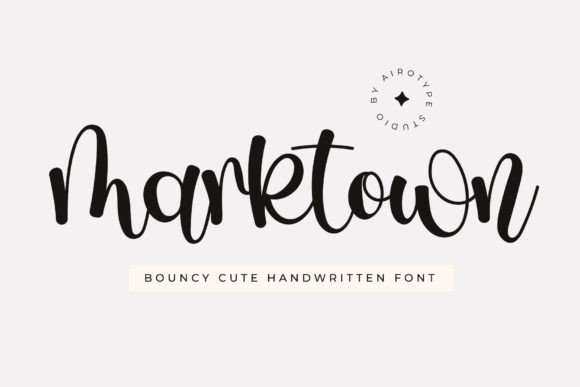
Meet Marktown Font – the enchanting script font that captures the essence of joy and playfulness. This bouncy and cute handwritten font exudes an irresistible charm, perfect for adding a touch of whimsy to your creative projects.
Unleash your imagination and explore the endless possibilities with Marktown Font. Its lively and quirky nature makes it an ideal choice for wedding designs, invitations, birthday celebrations, and t-shirt designs. Let your creativity flow as you craft eye-catching stickers, sublimation designs, and more.
Step into a world of creativity where simplicity meets charm. Marktown Font's uncomplicated handwritten style adds a personal touch to your designs, evoking a sense of warmth and authenticity. Whether you're a seasoned designer or just starting your creative journey, this font is your perfect companion.
Immerse yourself in the delightful world of Marktown Font and let your designs dance with joy. Join countless designers who have embraced the magic of this charming font, transforming their projects into masterpieces that captivate and inspire.